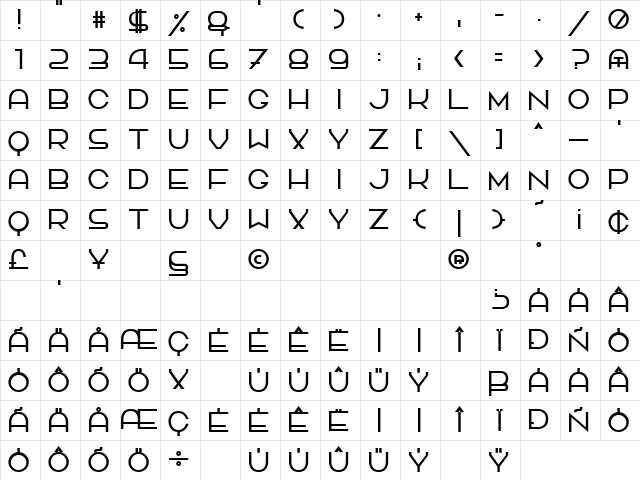
TPF Quackery Regular
Design Context for TPF Quackery
TPF Quackery is a composed and adaptable typeface that performs quietly and consistently across a wide range of design contexts.